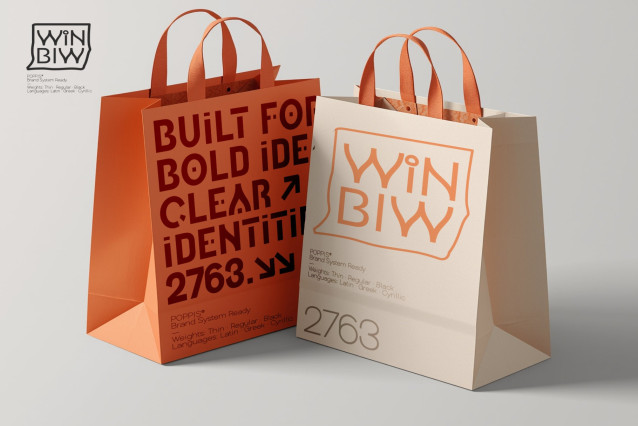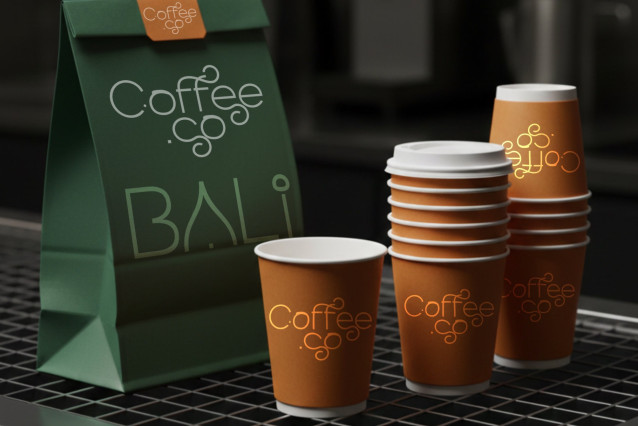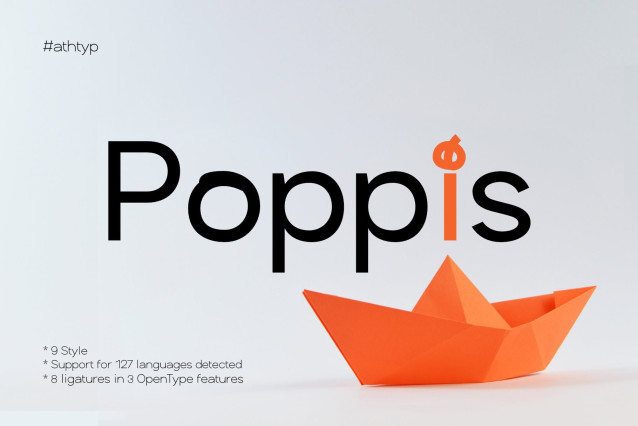
Poppis Font
Poppis Font is a contemporary geometric sans-serif font that harmoniously blends technical precision with an artistic flair. Crafted for a striking visual identity, it exudes an exceptional visual appeal, making it ideal for branding, web design, and professional editorial endeavors.